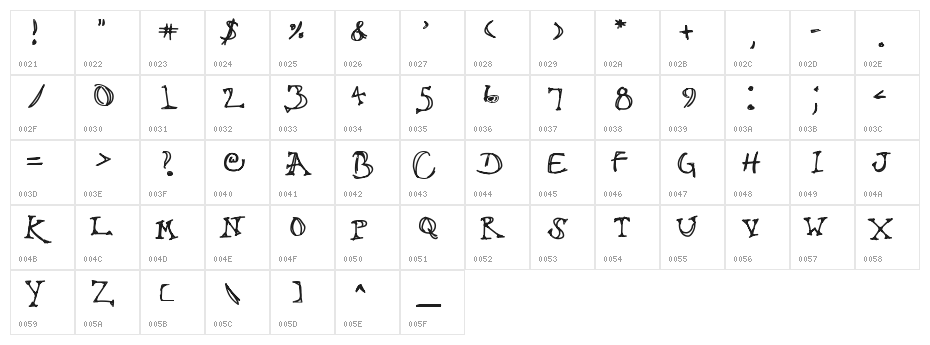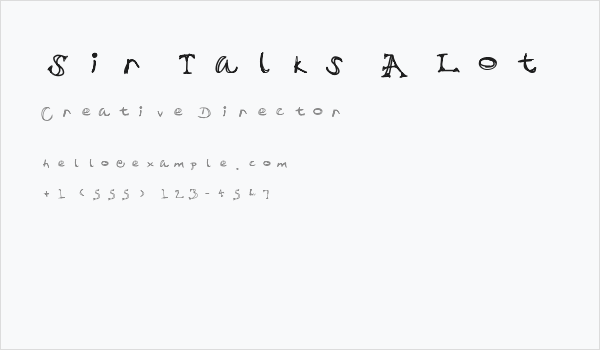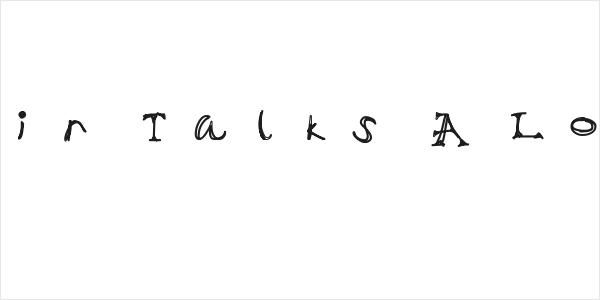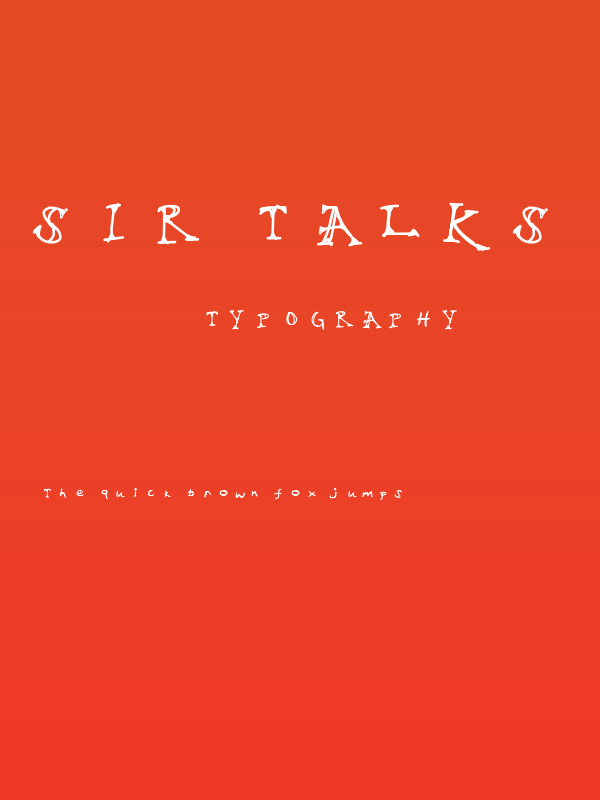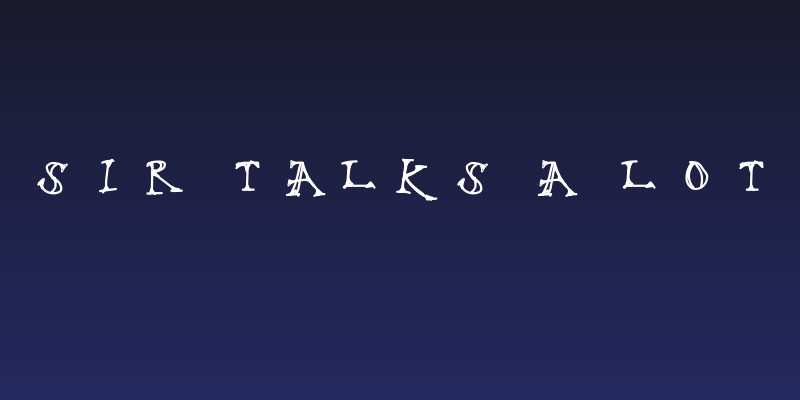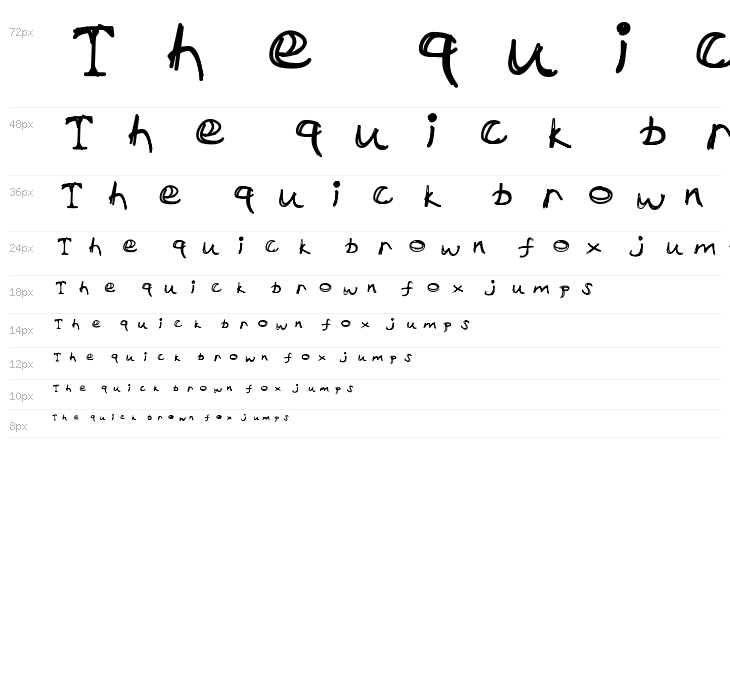
Sir Talks A Lot Font
This font features a whimsical and playful design, characterized by its irregular and flowing strokes that give it a handwritten appearance. The uppercase letters are bold and expressive, with unique flourishes that add a touch of creativity. The lowercase letters maintain a consistent style, with a slightly more subdued flair compared to the uppercase. Numbers are distinct and maintain the playful theme, with some characters featuring loops and curves that enhance the overall aesthetic. Special characters are designed to match the font's quirky style, ensuring a cohesive look across all text elements. This font is perfect for projects that require a fun and informal touch, such as invitations, greeting cards, or creative branding materials.
Use CaseHeadlines, Logos, Creative projects
Proposed ProjectsIdeal for invitations, greeting cards, creative branding, and playful design projects.